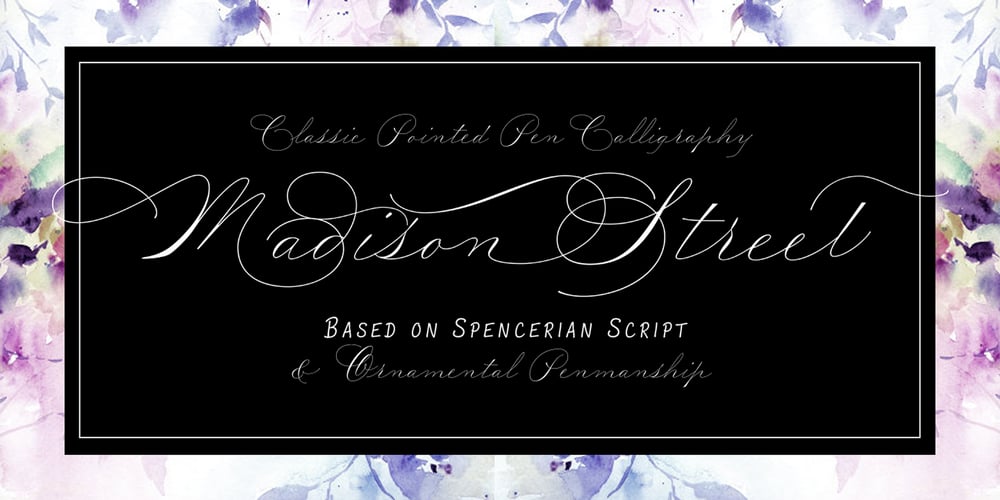
Madison Street
Madison Street font
Madison Street Font Family was designed by Jim Lyles, Eliza Gwendalyn, Elaina DeBoard and published by Studioways. Madison Street contains 8 styles and family package options. Madison Street is a font family with 8 fabulously fun typefaces! Eliza Gwendalyn & Jim Lyles of Studioways have teamed up with Spencerian calligrapher Elaina DeBoard to create a classic pointed pen calligraphy font. From its ornamental monograms, to its variety of complimentary text styles, and to its Madison Street Pro, with its elegant stylistic swashes and OpenType goodies, there is a font for every designer. Enjoy the sleek Madison Street Sans, Serif or Script, paired with the Ornaments font, complete with ornate monograms, or use each typeface on its own! Madison Street Pro has all the OpenType bells and whistles. The Ligature feature automatically substitutes beginning and ending letterforms, as well as 100 ligatures. Turn on the Swash feature for elegantly sweeping swash lowercase forms. Enable Stylistic Alternates for even more variations. There are also 10 Style Sets to chose from. And many more OT features! Madison Street is a basic version of the Pro font, intended for users who do not have OpenType savvy applications. Madison Street Stylistic is also a basic version of the Pro font, intended for users who do not have OpenType savvy applications. It has stylistically different ascenders and descenders. Madison Street Swash is intended to be used with the basic fonts, Madison Street and Madison Street Stylistic. It has lowercase beginning and ending swash glyphs and cannot be used to set text by itself. Madison Street Sans, Serif, and Script are text fonts modeled after the handwriting of Elaina. They are intended to be complimentary to any of the script fonts. However, you’ll need to set them at a smaller point size (about 1/3 the size) in order to get the preferred scale and weight. Finally, the hairline weight of the Madison Street script fonts is very thin, and at small sizes up to 40 pt, you may notice some breaking up when printing to desktop printers. To remedy this, we recommend outline stroking the text a small amount (.1 -.3 value). this should improve the output without adding to much weight overall.